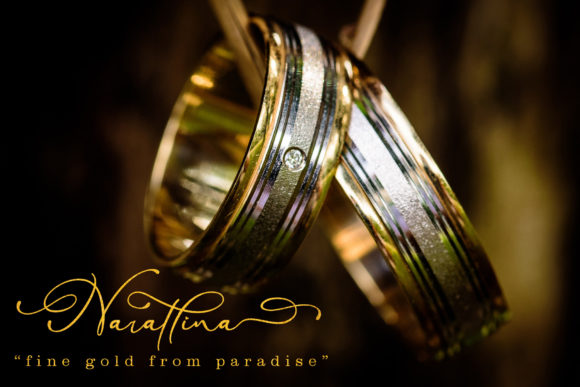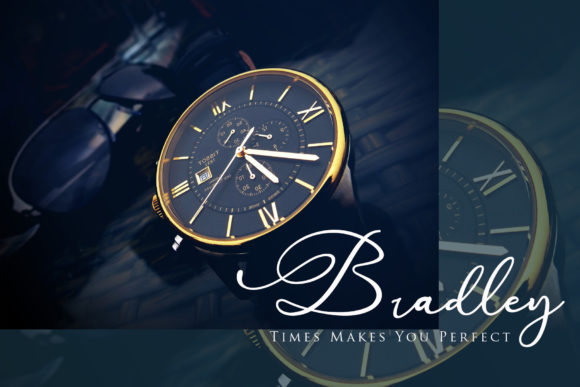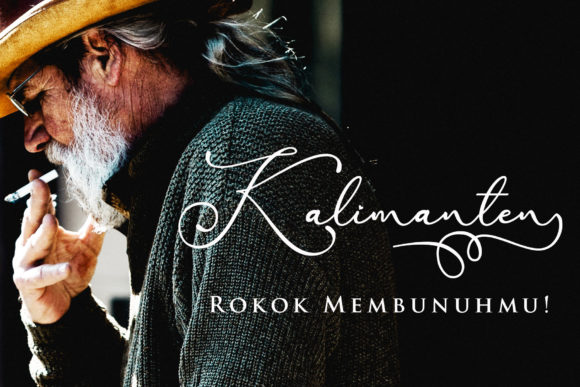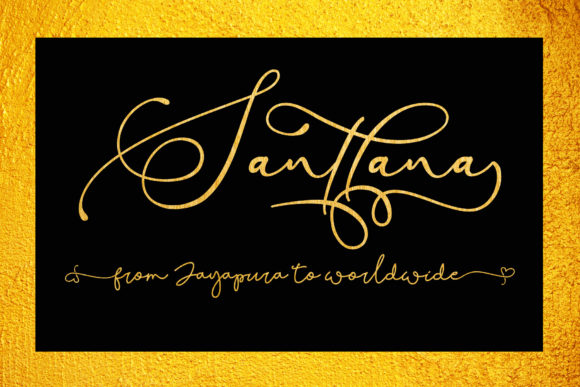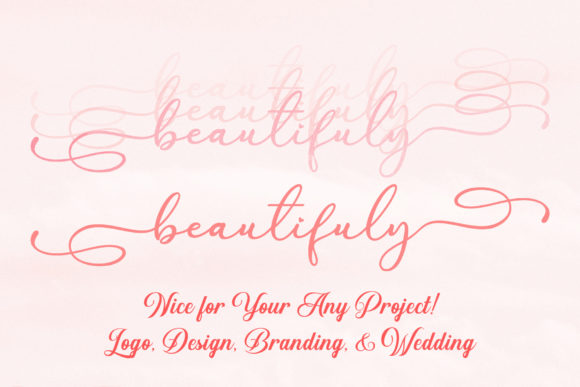
Introduction to Raregold Font
Raregold is a stunningly sweet and playful handwritten font that will add a unique flavor to any design idea.
Use it to turn any creative project into a standout .
Key Features of Raregold Font
Why Choose Raregold Font?
Raregold Font offers exceptional quality and versatility, making it a valuable addition to your design toolkit. Whether you’re creating for personal projects or commercial use, Raregold Font delivers professional results.